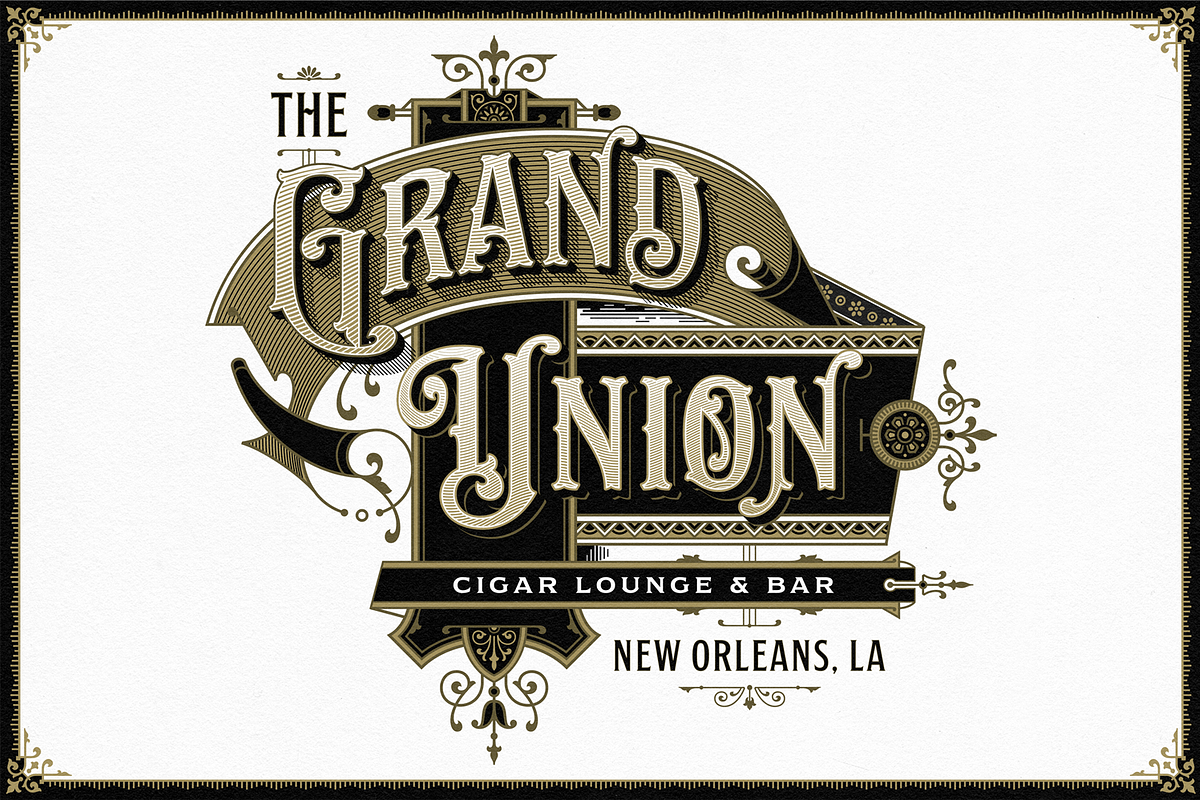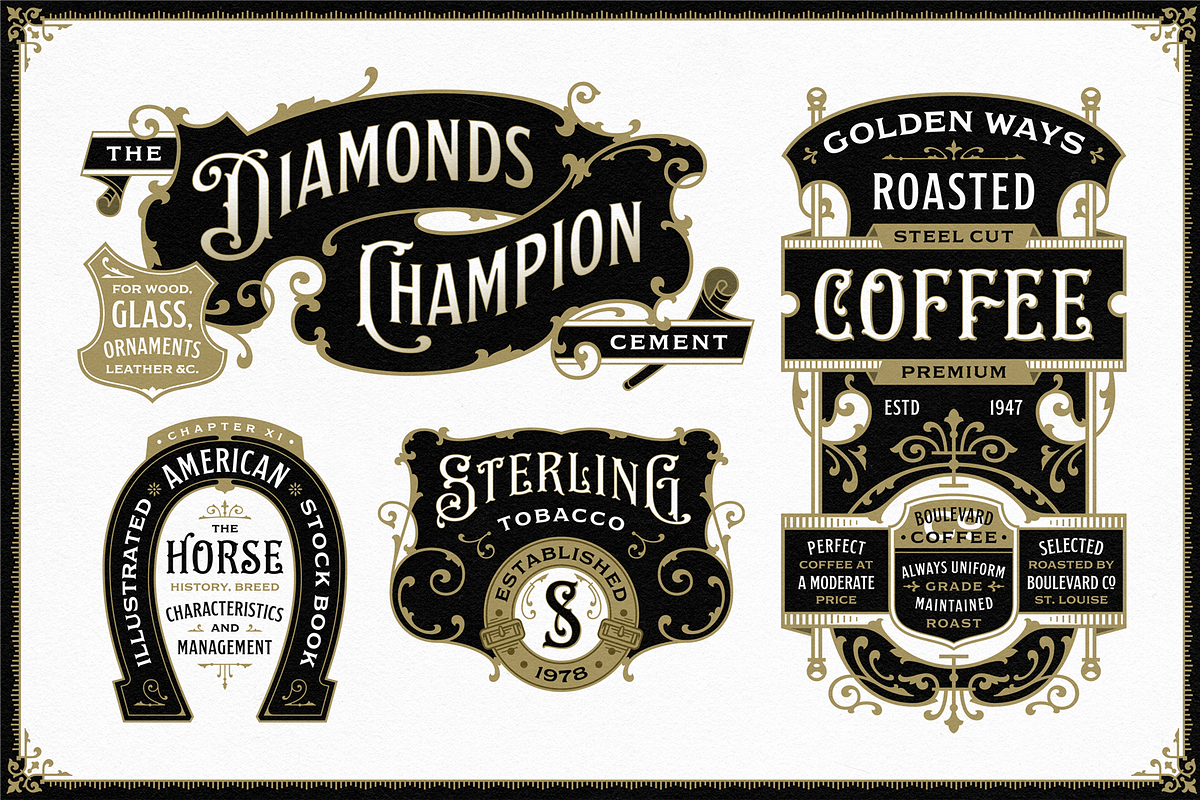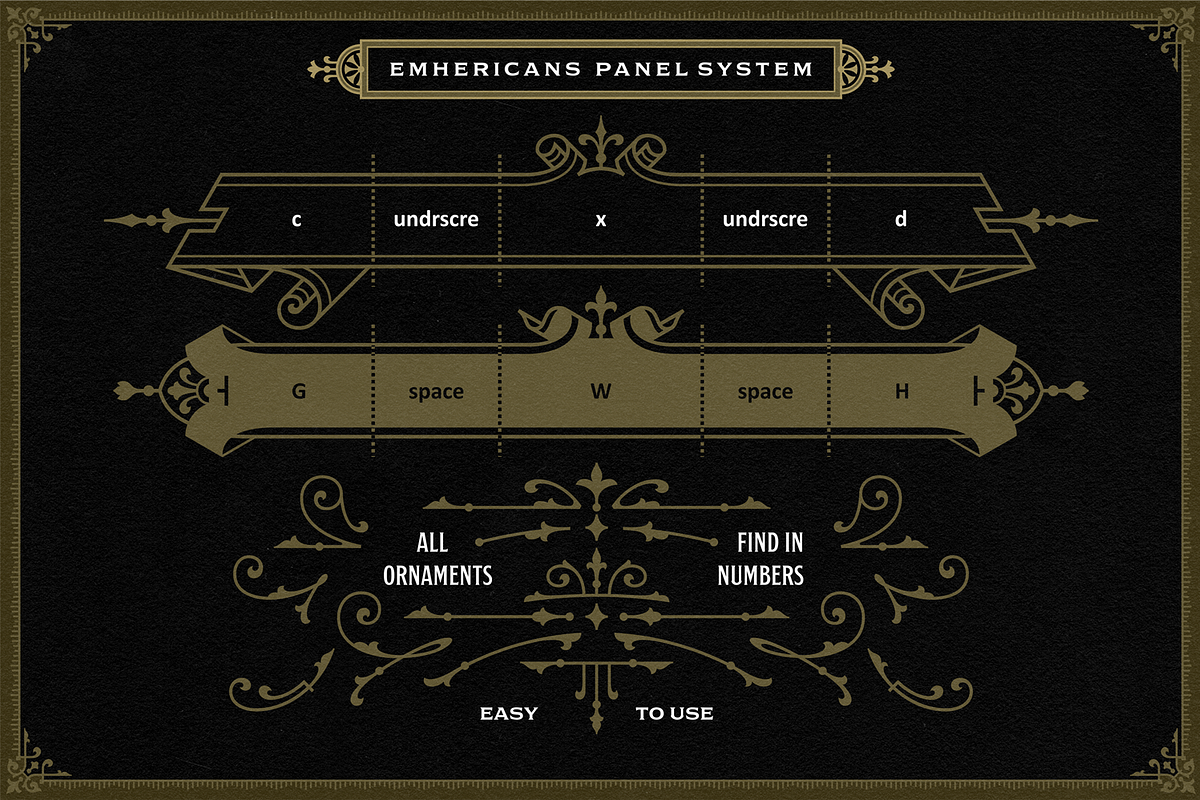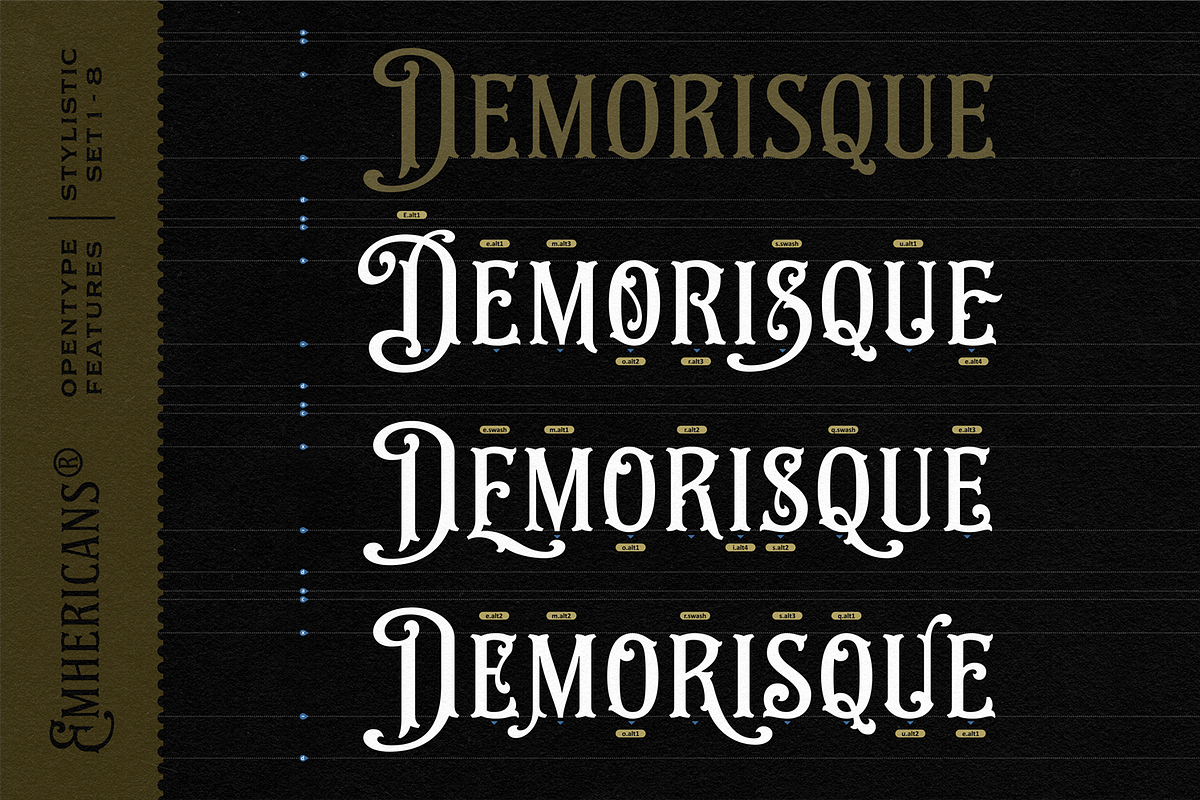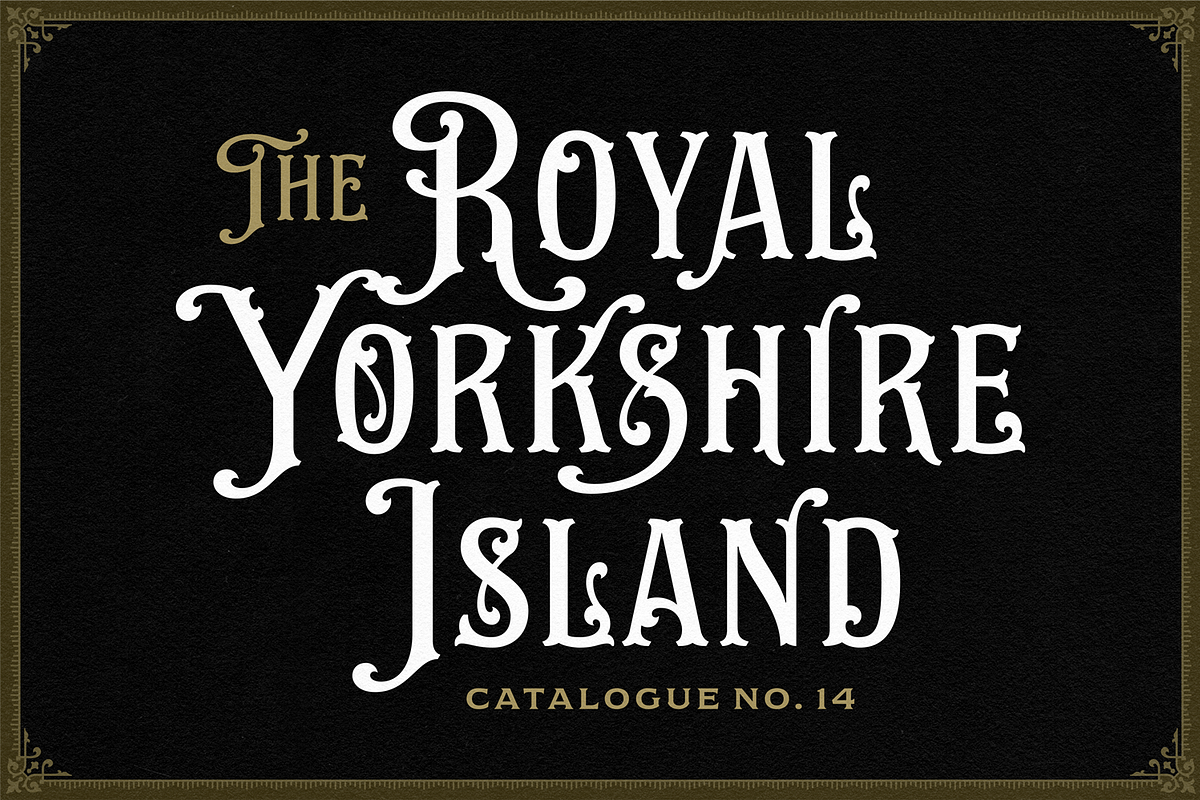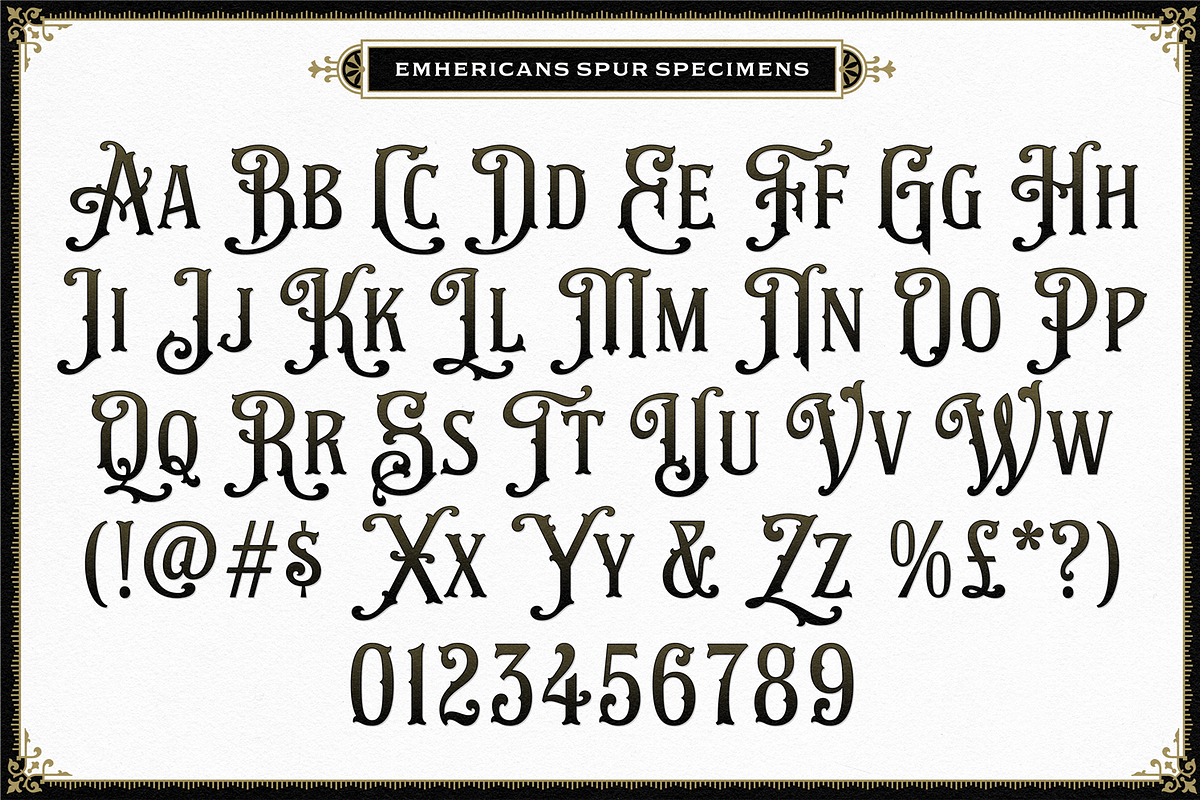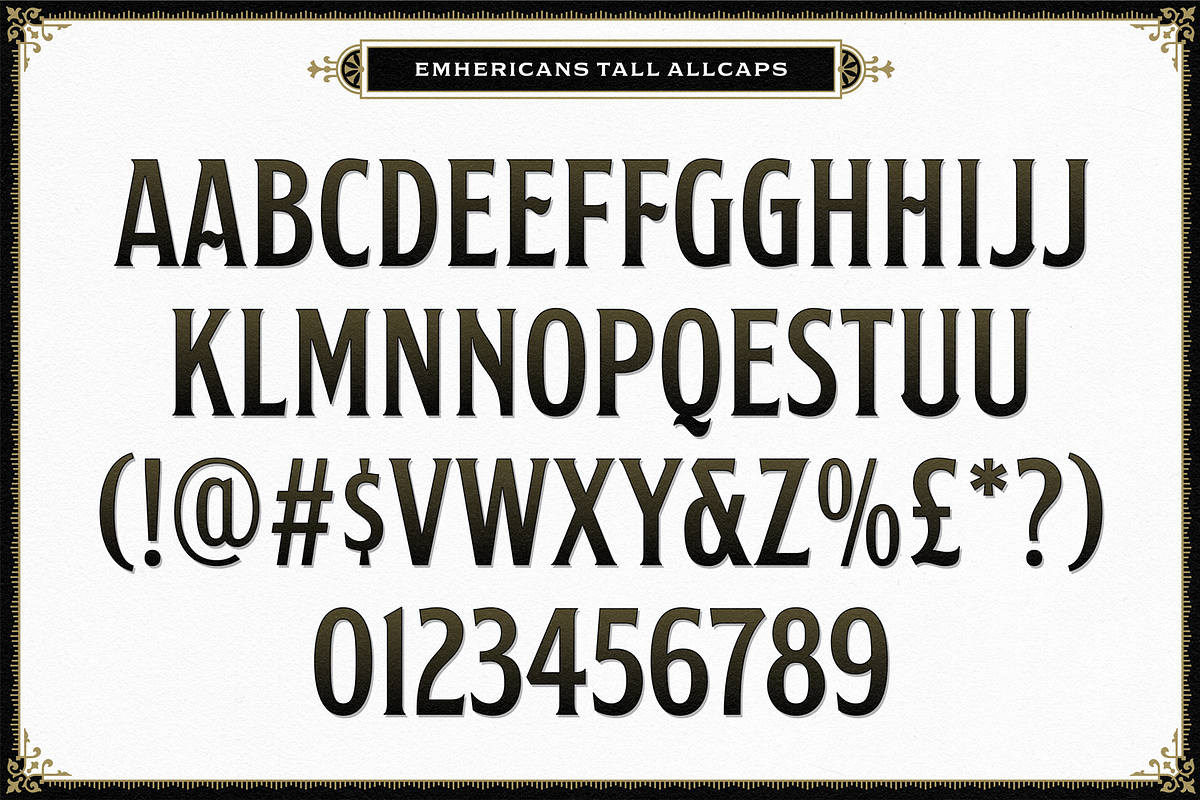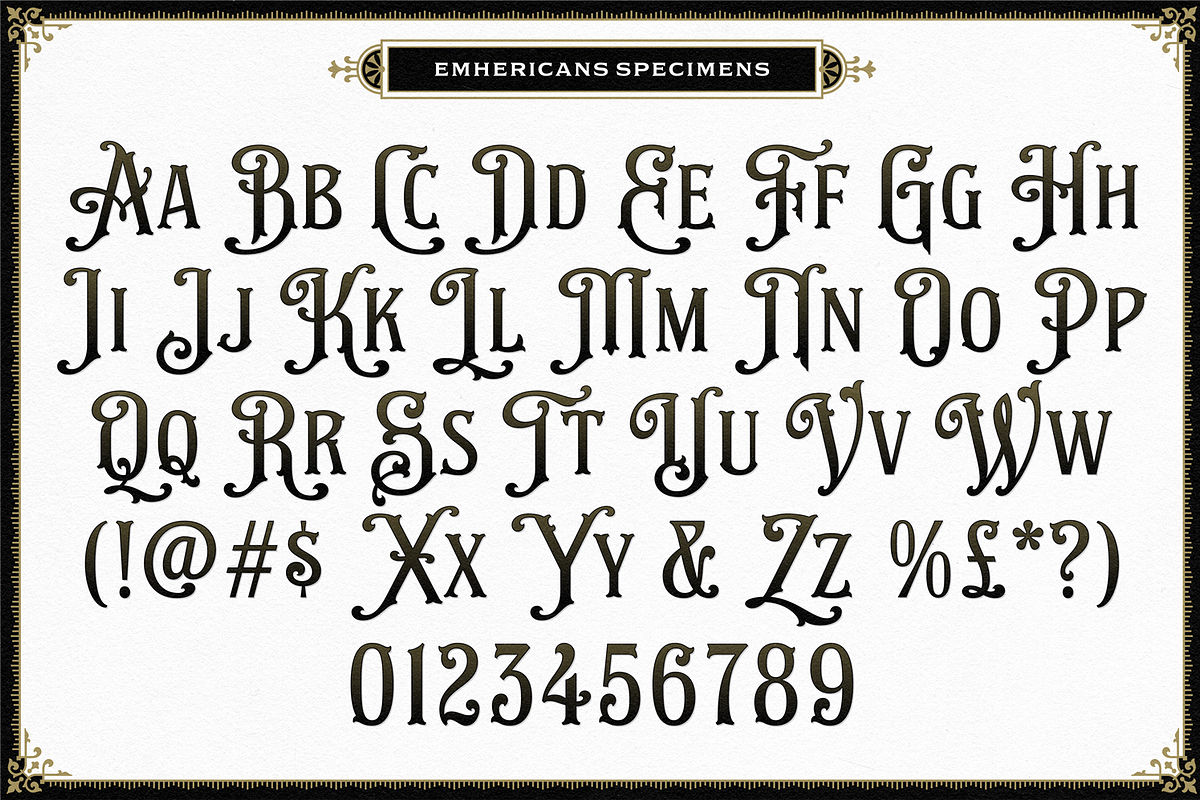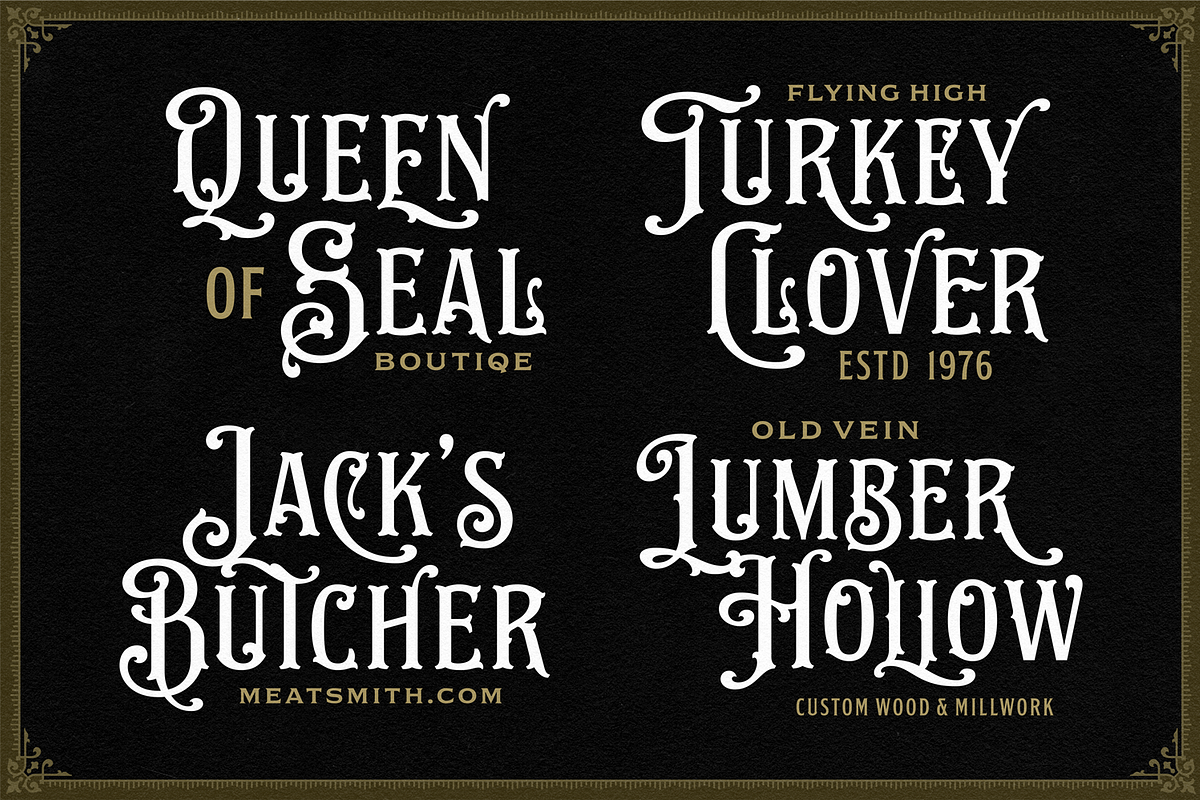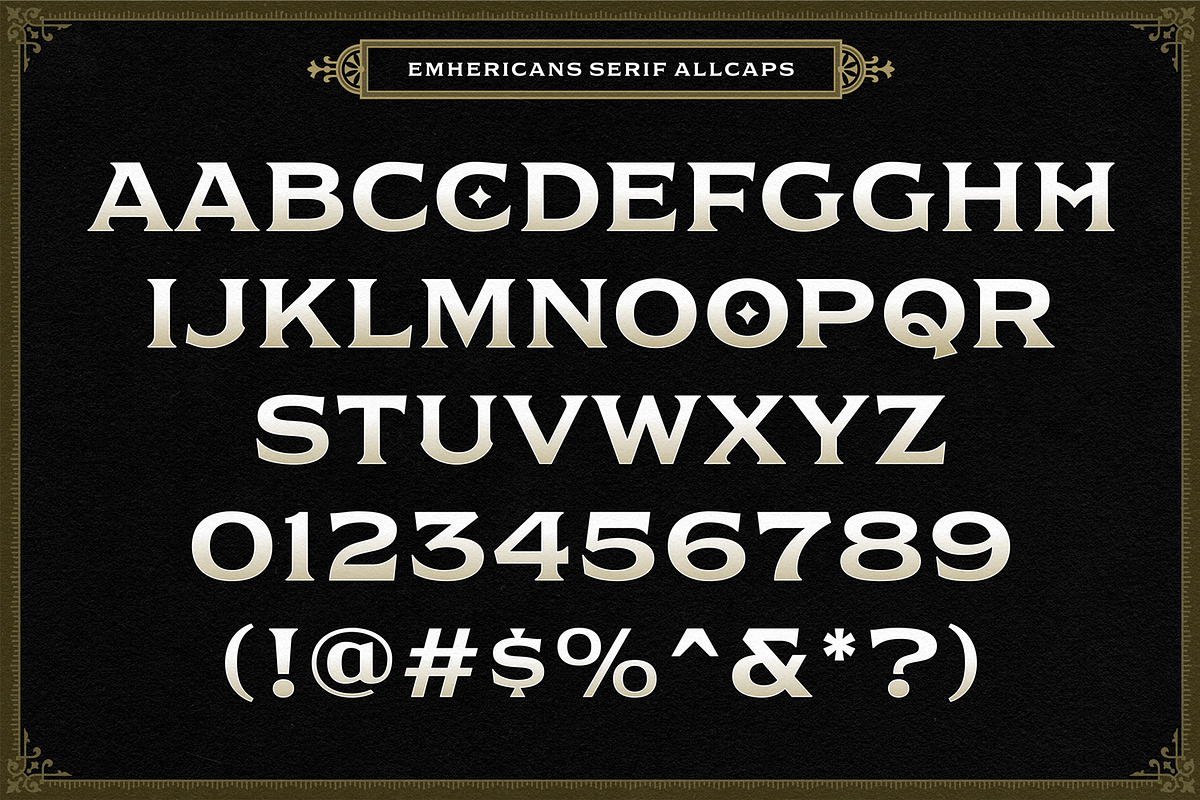
NS Emhericans + Extras
The Emhericans font was released in 2019. To commemorate its fifth anniversary, Emhericans comes with a new version. Many changes from the previous version such as a set of styles, bindings, configurations, language support, vector quality, font installation, and additions without losing the font DNA. It is ideal and perfect for creating design work for letterheads, posters, signage, charters, labels, packaging, logotypes, etc.
- NS Emhericans
- NS Emhericans Spur
- NS Emhericans Serif Allcaps
- NS Emhericans Tall Allcaps
- NS Emhericans Extras